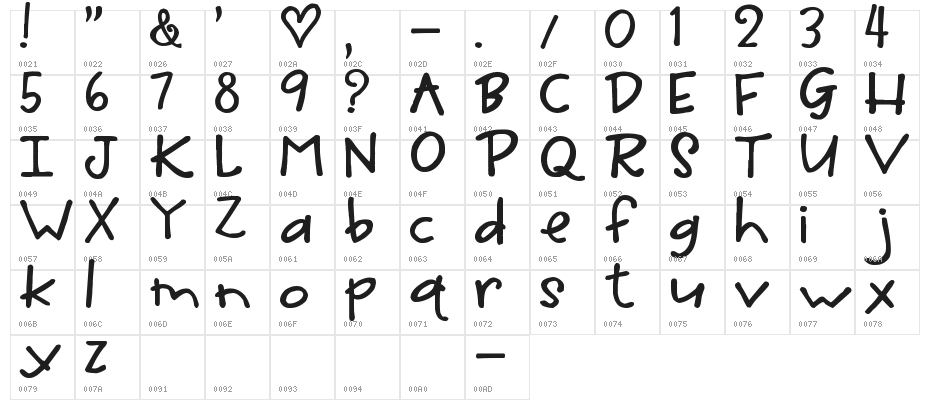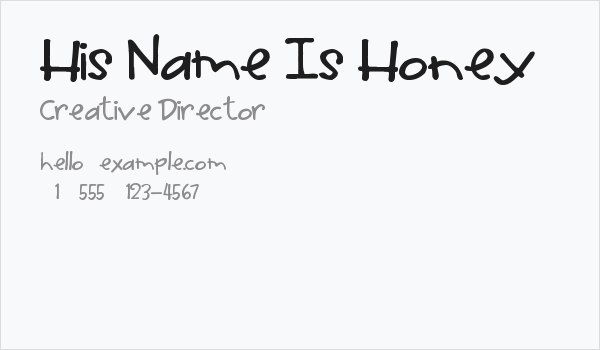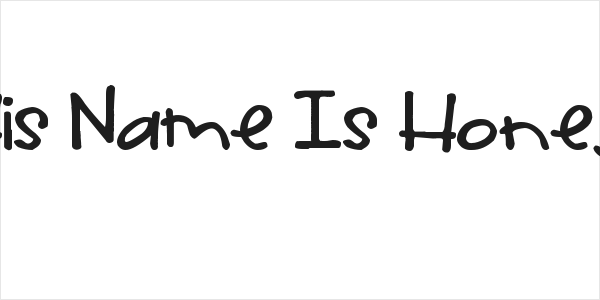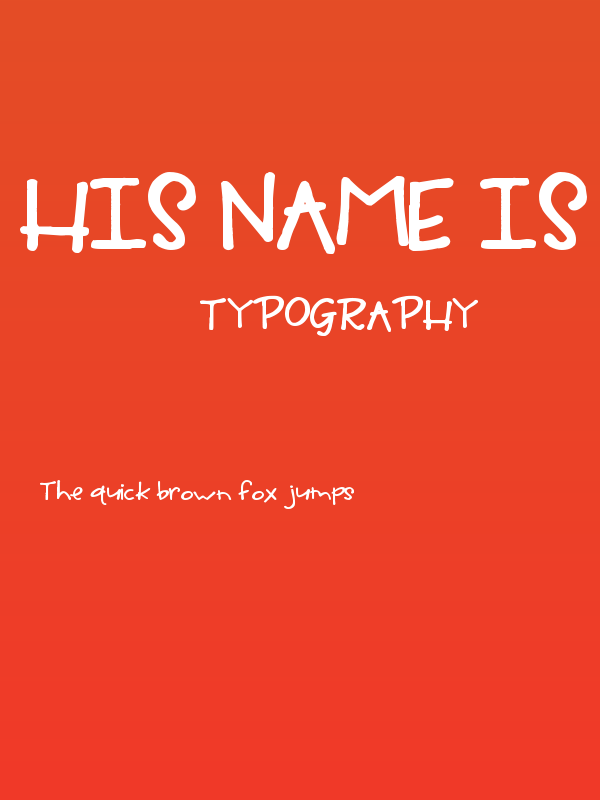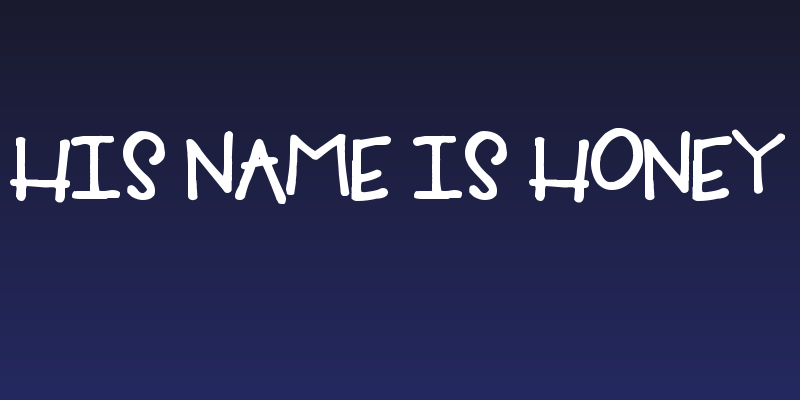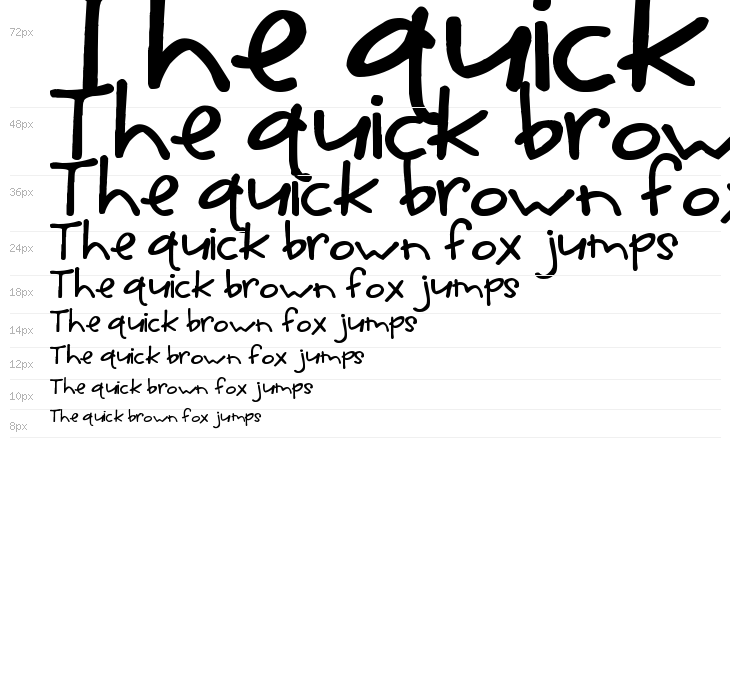
His Name Is Honey Font
His Name Is Honey Description
This playful and whimsical font features a handwritten style with a casual and friendly appearance. The letters are slightly irregular, giving it a personal touch that mimics natural handwriting. The uppercase and lowercase characters maintain a consistent flow, while the numbers and special characters add to its charm. The strokes are smooth and rounded, contributing to its approachable feel. This font is ideal for projects that require a touch of personality and warmth, such as greeting cards, children's books, or personal blogs.
| Use Case | Headlines, Informal text, Personal projects |
| Proposed Projects | Greeting cards, children's books, personal blogs, informal invitations. |